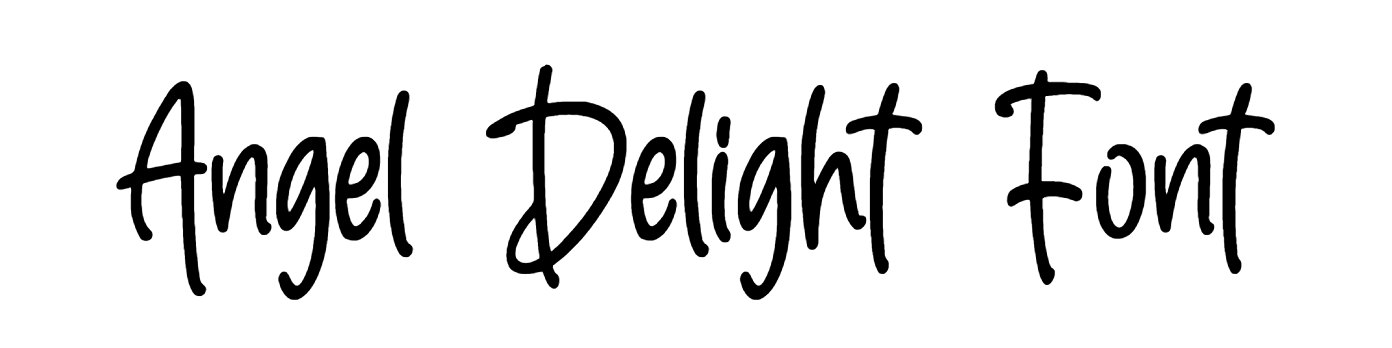
Angel Delight
Angel Delight is a handwritten font designed by Rangga Singgih Subekti and published by Subectype (2020). It looks like someone actually wrote it by hand: relaxed, friendly and a little imperfect in a good way. It's a free download, and you can try it with your own text in the preview above first.
What You Can Type With Angel Delight
You get every letter from A to Z in both cases and all the numbers from 0 to 9, which means Angel Delight can handle full sentences, dates and prices. Everyday marks like &, !, ? and @ are there too. Thanks to its accented letters, it also works for Spanish, French, German, Portuguese and Italian, not just English.
Ligatures and Smart Letters in Angel Delight
Where Angel Delight Works Best
Angel Delight is a natural fit for greeting cards, journal pages and friendly social posts. Set it a bit larger than you would a normal text font. Handwriting styles lose their charm once they get too small to read comfortably.
Does Angel Delight have ligatures?
Yes. Angel Delight has ligatures that turn on by themselves in most design apps and browsers, so you don't need to do anything special.
Does Angel Delight support accented letters?
Yes. Angel Delight includes the accented letters needed for Spanish, French, German, Portuguese and Italian, so it works for more than just English.